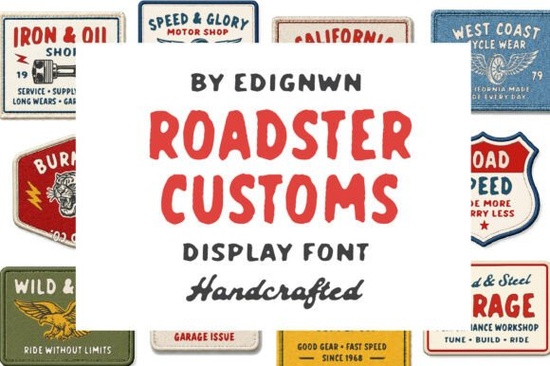
If you've been searching for a typeface that captures the look of hand-painted garage lettering and vintage motorcycle culture, the Roadster Customs Font is worth a close look. This handcrafted display font from Creative Fabrica gives designers, crafters, and small business owners a bold, raw aesthetic that works across apparel, patches, logos, and packaging. Whether you run a print-on-demand shop or design branding for local motor clubs, this font brings genuine custom-built character to your work.
Roadster Customs was built with a raw garage lettering feel, and it shows in every glyph. The handcrafted strokes have that imperfect, slightly rough quality you'd expect from someone sketching lettering in a real workshop not a sterile digital studio. For anyone working in the roadster customs font display fonts space, this kind of authenticity matters.
What Makes This Font Different From Other Display Typefaces?
Most display fonts lean either too polished or too messy. Roadster Customs lands in a sweet spot. The script style has a strong, flowing rhythm with old-school garage charm the kind of lettering you'd see on a hand-lettered shop sign or a vintage race jacket. The two sans styles complement the script perfectly, giving you solid supporting type for badges, labels, posters, and apparel graphics.
- Script style flowing, handmade lettering with a vintage motor culture feel
- Sans styles (x2) rugged, clean supporting type for secondary text
- Regular and Textured versions choose between crisp or distressed finishes
That combination means you can build entire brand systems from logo to label to packaging using one cohesive font family. The textured versions are especially useful when you want a worn, vintage look without spending extra time adding distress effects in your design software.
What Projects Does Roadster Customs Work Best For?
This font was designed with specific use cases in mind, and it shines brightest in these areas:
- Vintage apparel design T-shirts, hoodies, hats, and patches for motorcycle and hot rod culture
- Garage and shop identities logos, signage, and branding for mechanic shops, custom bike builders, and auto garages
- Motor club graphics patches, club logos, and membership cards
- Print-on-demand products stickers, mugs, posters, and decals with a rugged custom feel
- Handcrafted goods packaging labels and tags for artisan products, leather goods, and craft brands
The versatility here is real. You could use the script for a T-shirt headline and switch to the sans style for product details on a hang tag. That kind of flexibility saves time and keeps your designs consistent.
Who Should Consider This Font?
Roadster Customs is a strong fit if you:
- Design apparel or merchandise with a vintage or retro aesthetic
- Run a small business that caters to motorcycle, hot rod, or garage culture
- Create patches, stickers, or decals for niche communities
- Need a welcome font for display purposes that feels handcrafted rather than corporate
That contrast is exactly why it's useful. Every designer needs a range of styles in their toolkit, and having something bold and industrial-toned alongside softer options gives you more creative range.
Tips for Getting the Most Out of This Font
A few practical suggestions based on common design workflows:
- Use the textured version for print-on-demand the built-in distress effect looks more natural than applying textures separately in Photoshop
- Pair the script with the sans for contrast use the script for headlines and the sans for body text or product details
- Keep background colors simple this font has enough visual weight on its own; let it be the focal point
- Test at multiple sizes display fonts can behave differently at small sizes, so check readability before finalizing
- Start with a simple two-style combination (script + sans)
- Choose Regular for clean branding or Textured for a vintage look